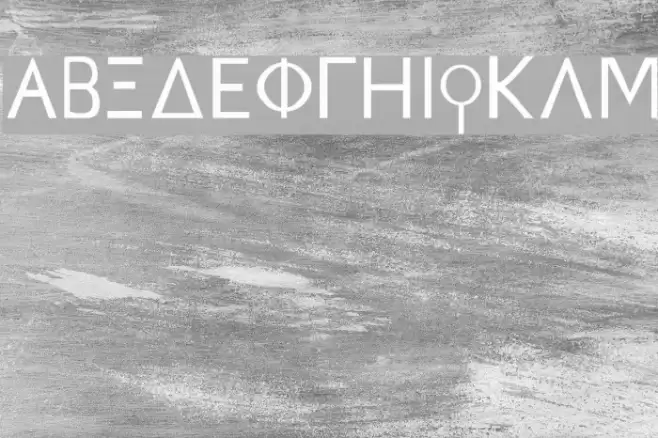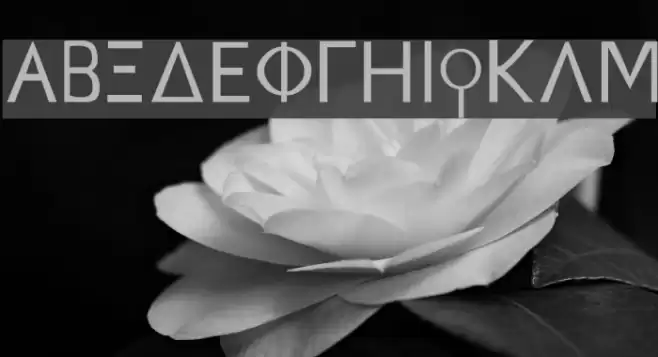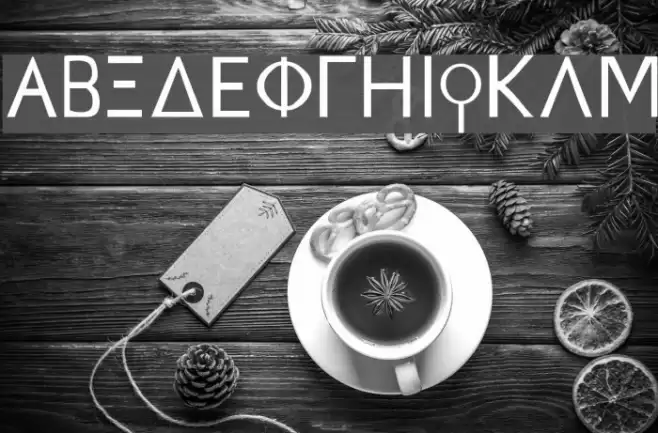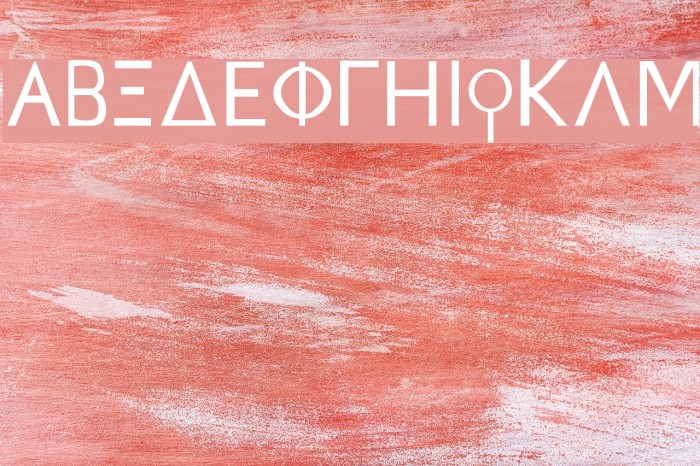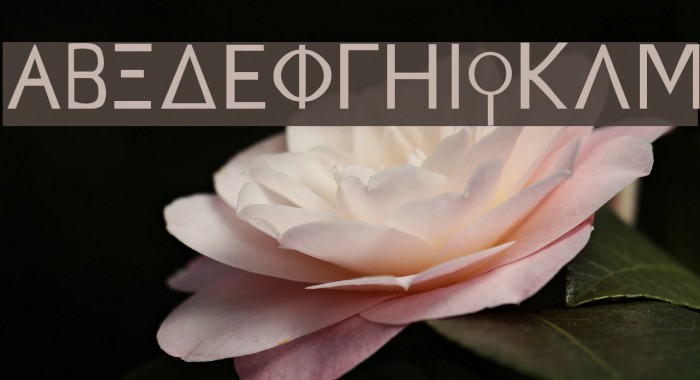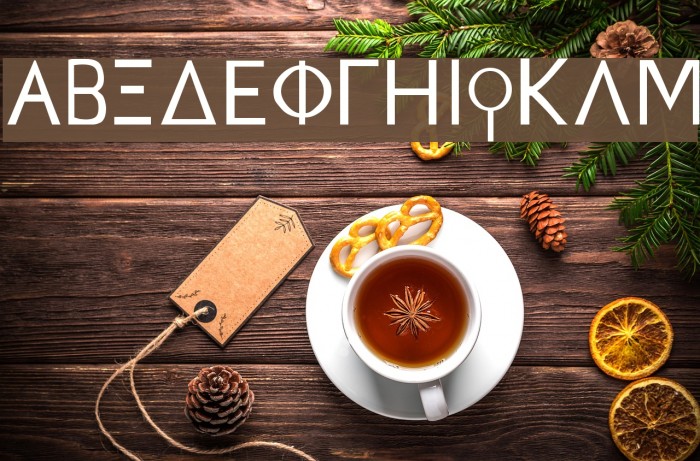
SPIonic Font
SPIonic Description
This font is a clean and modern representation of the Greek alphabet, featuring both uppercase and lowercase letters. The characters are designed with a geometric precision, offering a balanced and harmonious appearance. The strokes are consistent in width, providing a uniform look across all letters. The font includes a variety of special characters, enhancing its versatility for different uses. Its simplicity and clarity make it suitable for both digital and print media, ensuring readability and aesthetic appeal.
A modern, geometric font featuring the Greek alphabet with consistent stroke width from Uncategorized fonts.
- Proposed Projects: Ideal for academic publications, historical documents, digital interfaces, and educational materials focusing on Greek language or culture.
- Use Case: Headlines, Body text, Educational materials